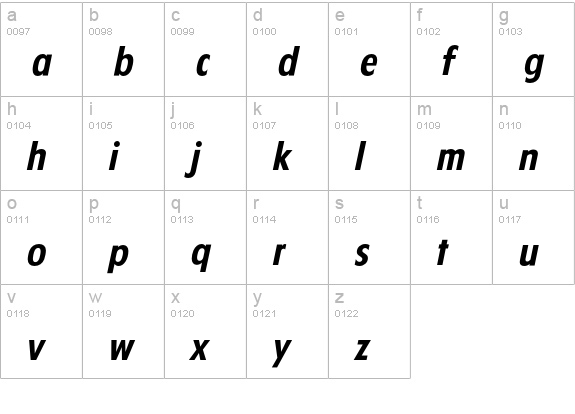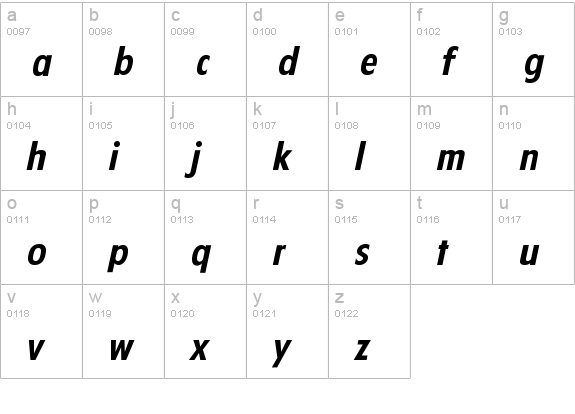
Florida-DemiBoldIta Font Details
Florida-DemiBoldIta is a captivating and versatile font that strikes the perfect balance between elegance and modernity. With its unique blend of boldness and italicized flair, this font exudes confidence and sophistication. The stylish curves and intricate details of Florida-DemiBoldIta make it ideal for a wide range of design projects, from branding to editorial design. The best part? Florida-DemiBoldIta is available for free download at FontsMarket.com, making it accessible to all designers and creatives looking to add a touch of sophistication to their work. Whether you're working on a logo, poster, website, or any other design project, Florida-DemiBoldIta is sure to make a statement and elevate your work to the next level. Download this stunning font today and unleash your creativity with Florida-DemiBoldIta.